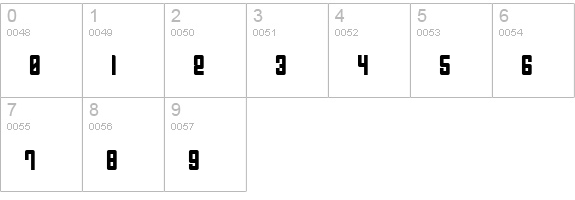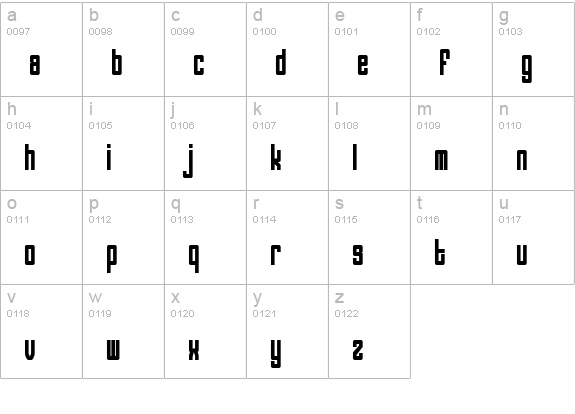
TR Atomic Font Details
Introducing TR Atomic Font, a modern and sleek typeface that exudes sophistication and style. With its clean lines and sharp edges, this font is perfect for creating eye-catching designs that demand attention. The geometric shapes and bold letterforms make TR Atomic Font ideal for a wide range of projects, from branding to editorial design. What makes TR Atomic Font even more appealing is that it is available for free download at FontsMarket.com. Yes, you read that right - you can get your hands on this stunning font without spending a dime. Whether you're a professional designer looking for a fresh addition to your toolkit or a hobbyist exploring new typography options, TR Atomic Font is a must-have in your collection. Don't miss out on the opportunity to elevate your designs with TR Atomic Font. Download it today and let your creativity soar to new heights!